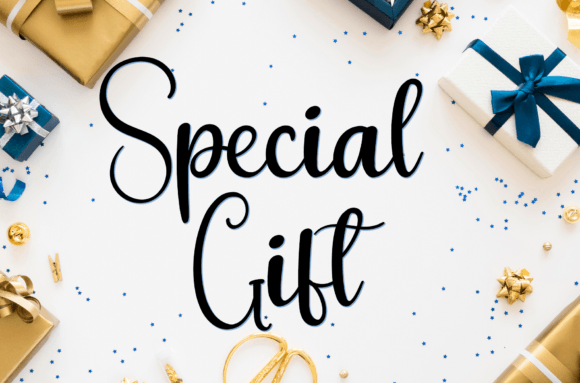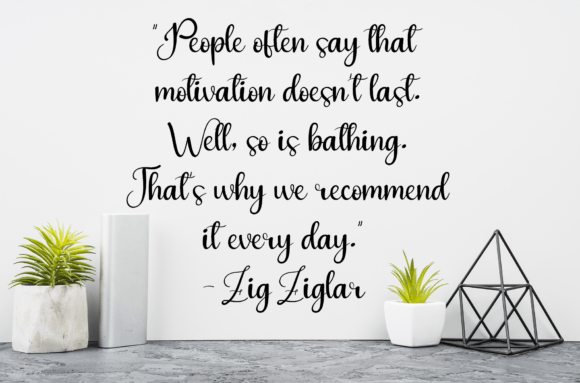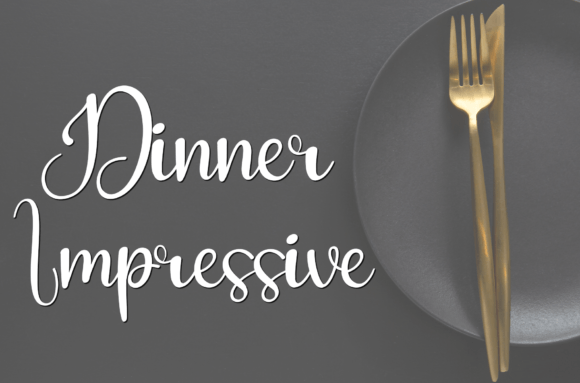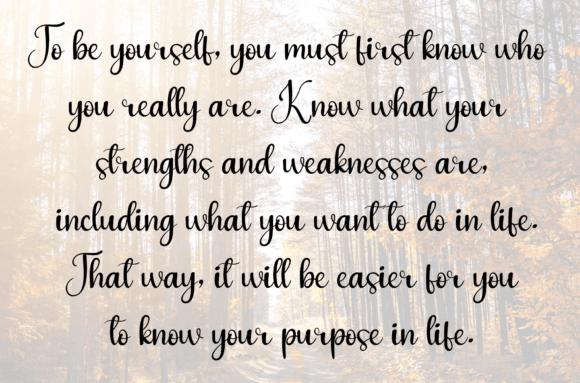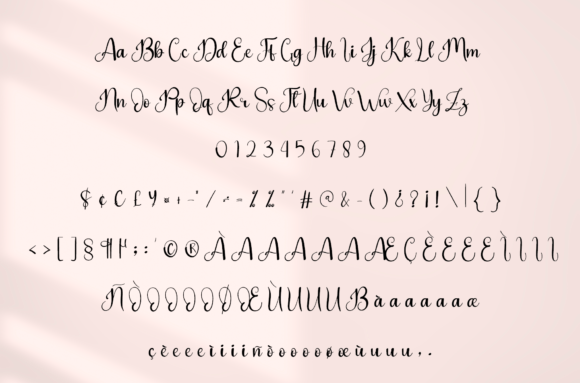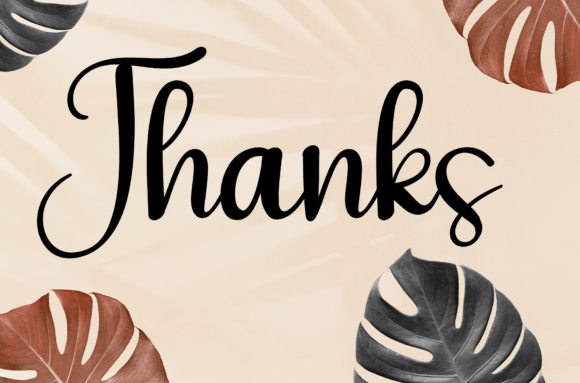
Introduction to Hello Valentine Font
Have you ever found yourself rummaging through your craft supplies, searching for the perfect font to add a touch of personality to your handmade cards or scrapbook pages? For many of us, this moment of creative discovery is what sparks our imagination and inspires us to bring our ideas to life. And for those who love a good handwritten font, the Hello Valentine Font is sure to be a game-changer.
Key Features of Hello Valentine Font
- High-quality design resource perfect for creative projects and valentines day themes.
- Includes a range of characters and glyphs, making it suitable for various design needs.
- Unique, cursive script font design that adds a touch of elegance to any creative project.
- Perfect for use in digital design, including invitations, greeting cards, and social media graphics.
Honest Review: Hello Valentine Font
As a designer, I’m always on the lookout for high-quality design resources to elevate my creative projects. The Hello Valentine Font is one such resource that caught my attention.
Here are some things that work well: ✨ Beautiful, hand-drawn illustrations that add a personal touch to any design ✨ A wide range of characters, including uppercase and lowercase letters, numbers, and punctuation marks ✨ Transparent background, making it easy to use in any design project
While the Hello Valentine Font is a great resource, there are a few limitations: ⚠️ Limited language support – it only includes the English alphabet ⚠️ Not ideal for large-scale projects due to its hand-drawn nature
To get the most out of the Hello Valentine Font, use it in creative projects that require a touch of romance and elegance, such as wedding invitations, valentine’s day cards, and romantic gift tags.
The Hello Valentine Font is commonly used in design projects that require a playful and whimsical touch, such as:
- Valentine’s Day cards and gifts
- Wedding invitations and decorations
- Love-themed social media posts and graphics